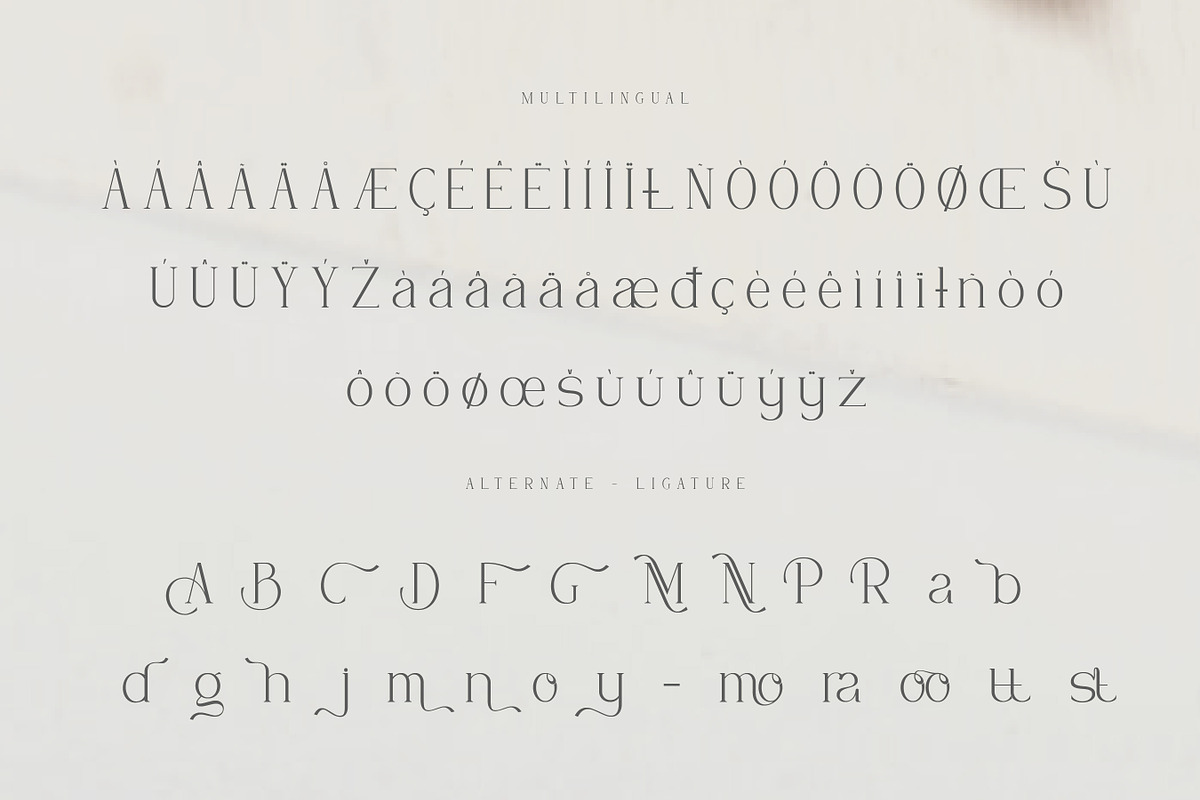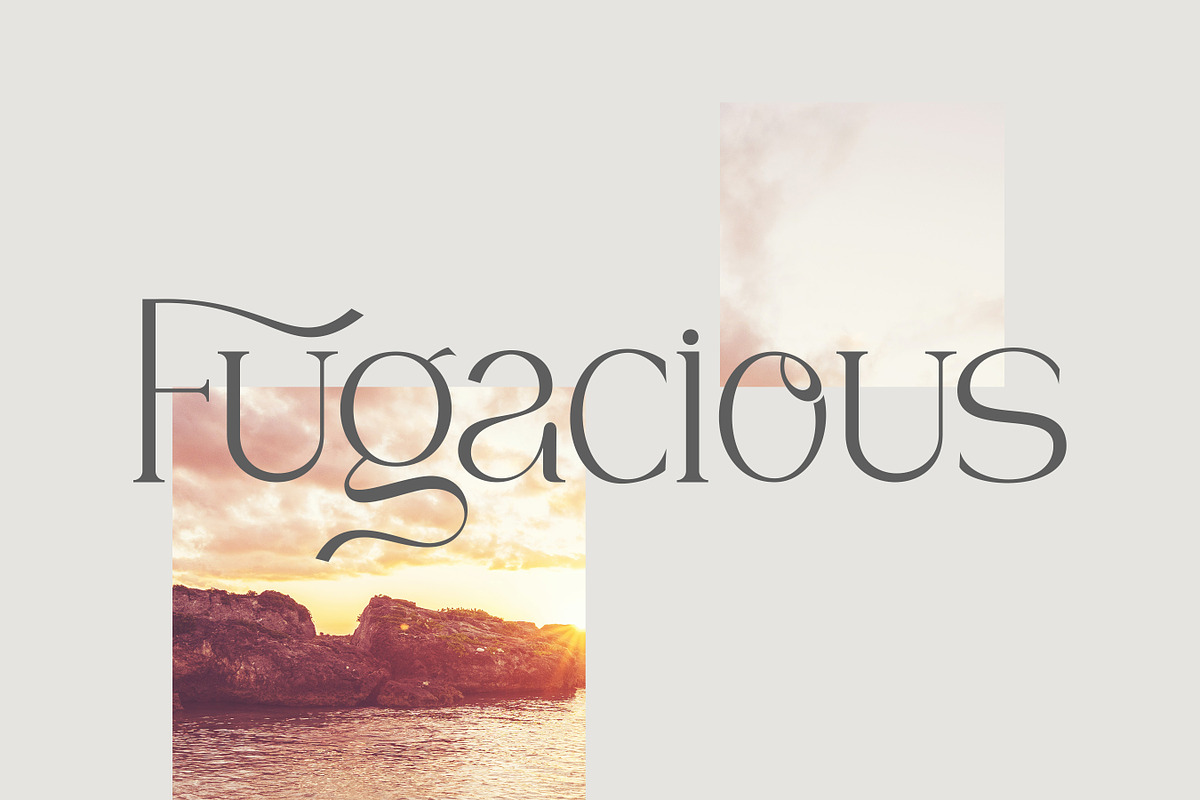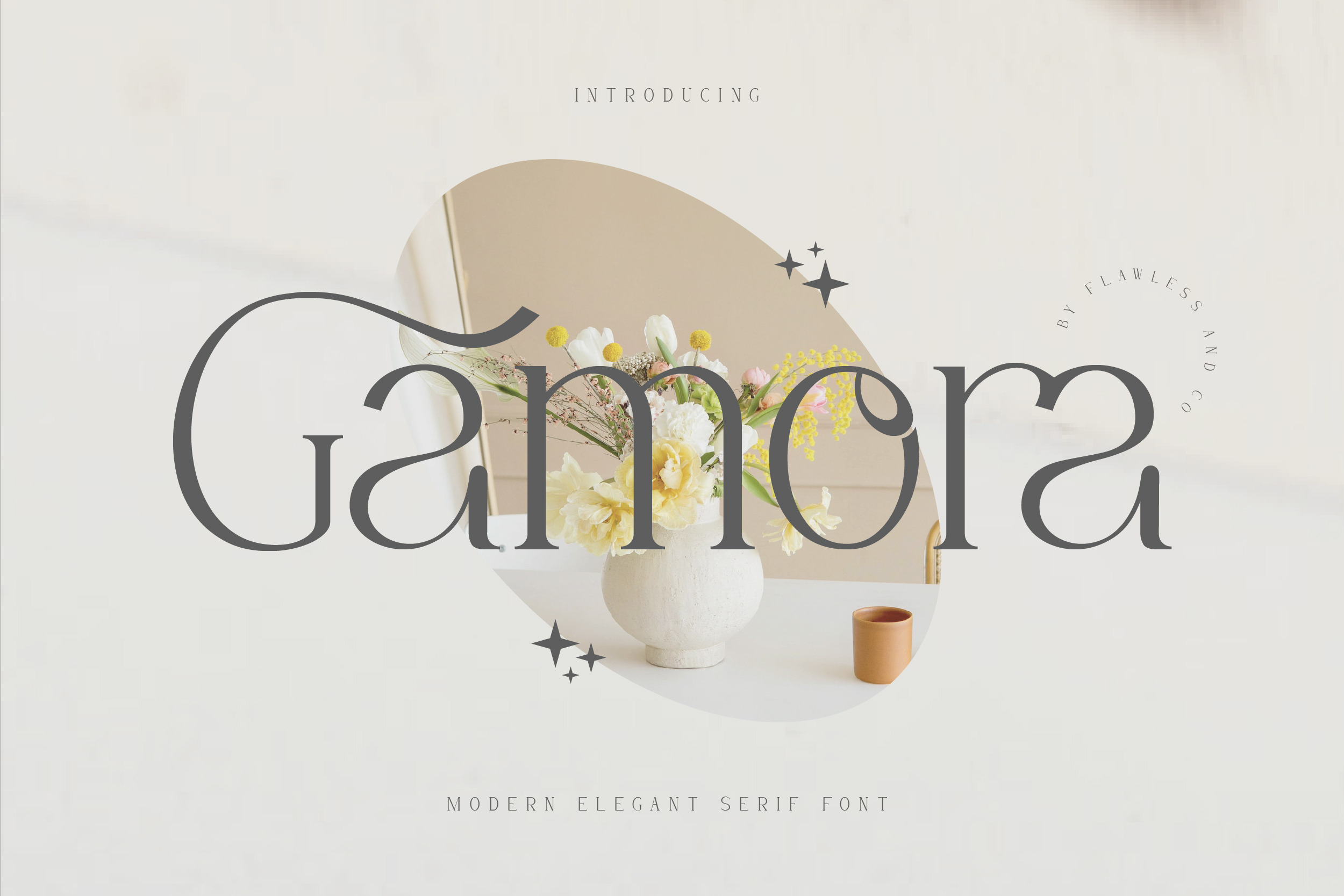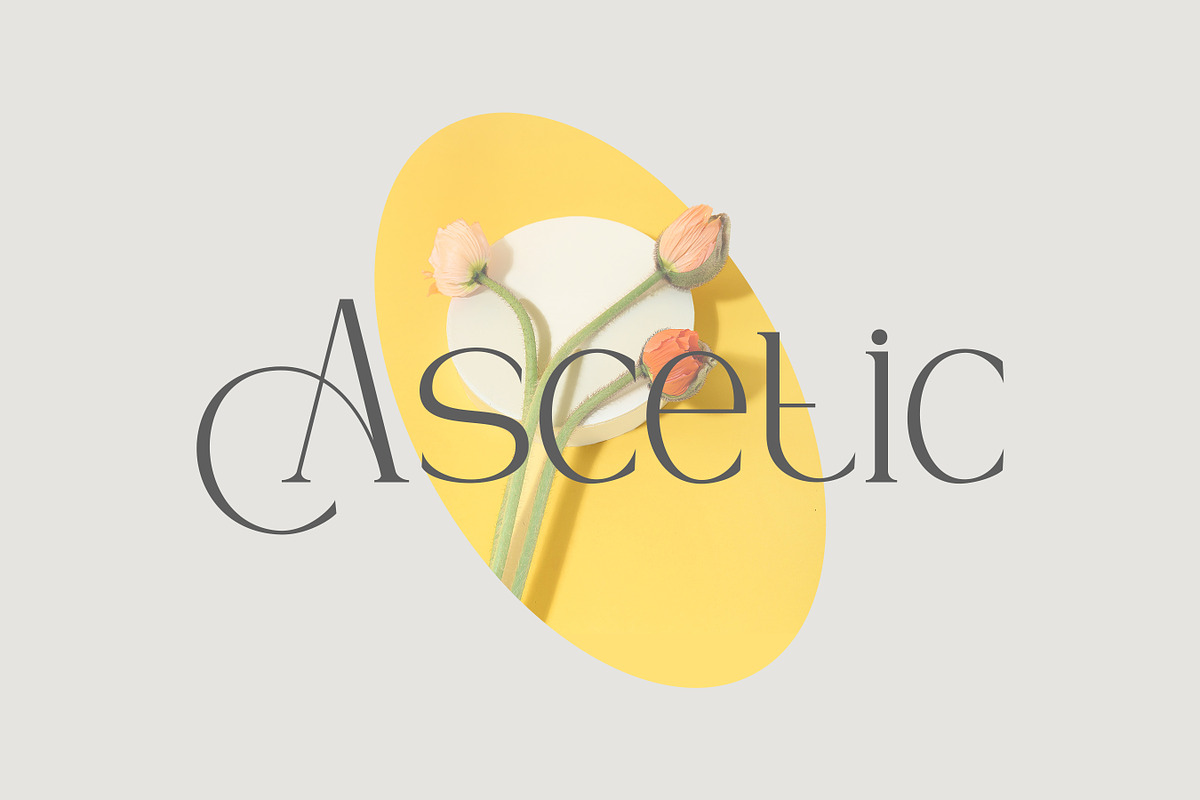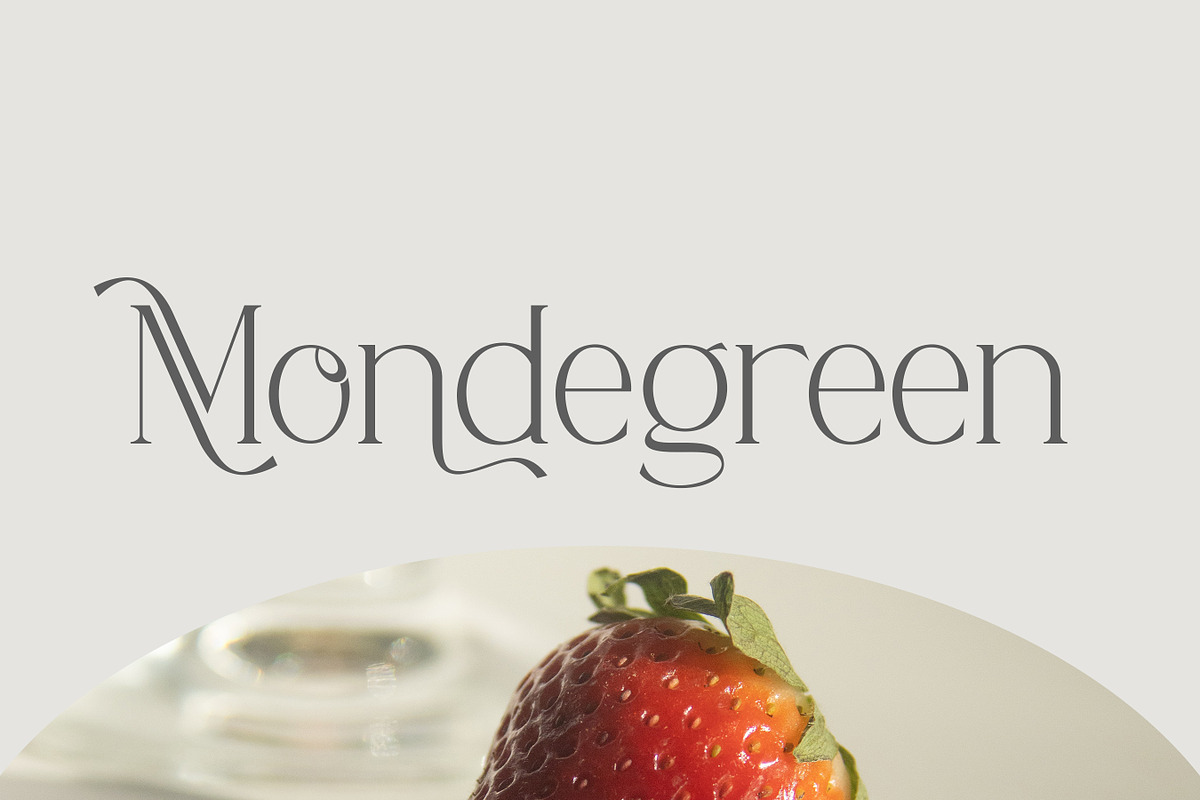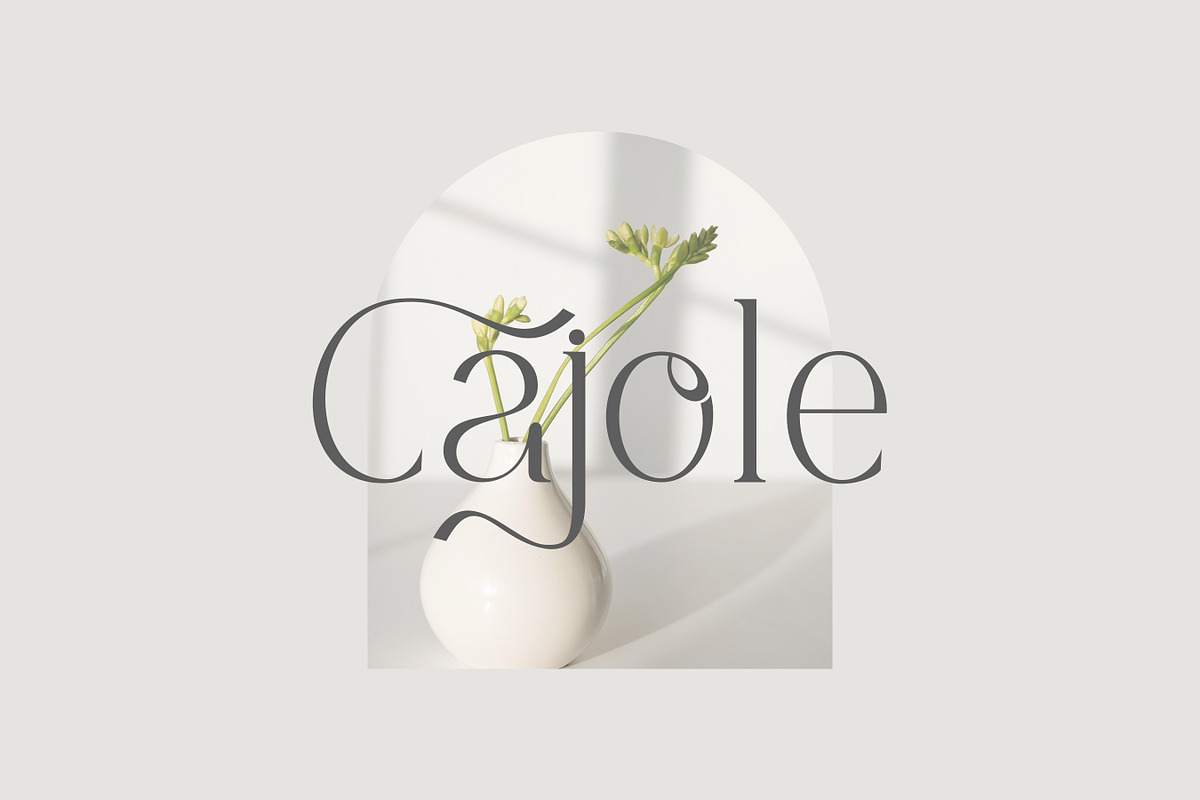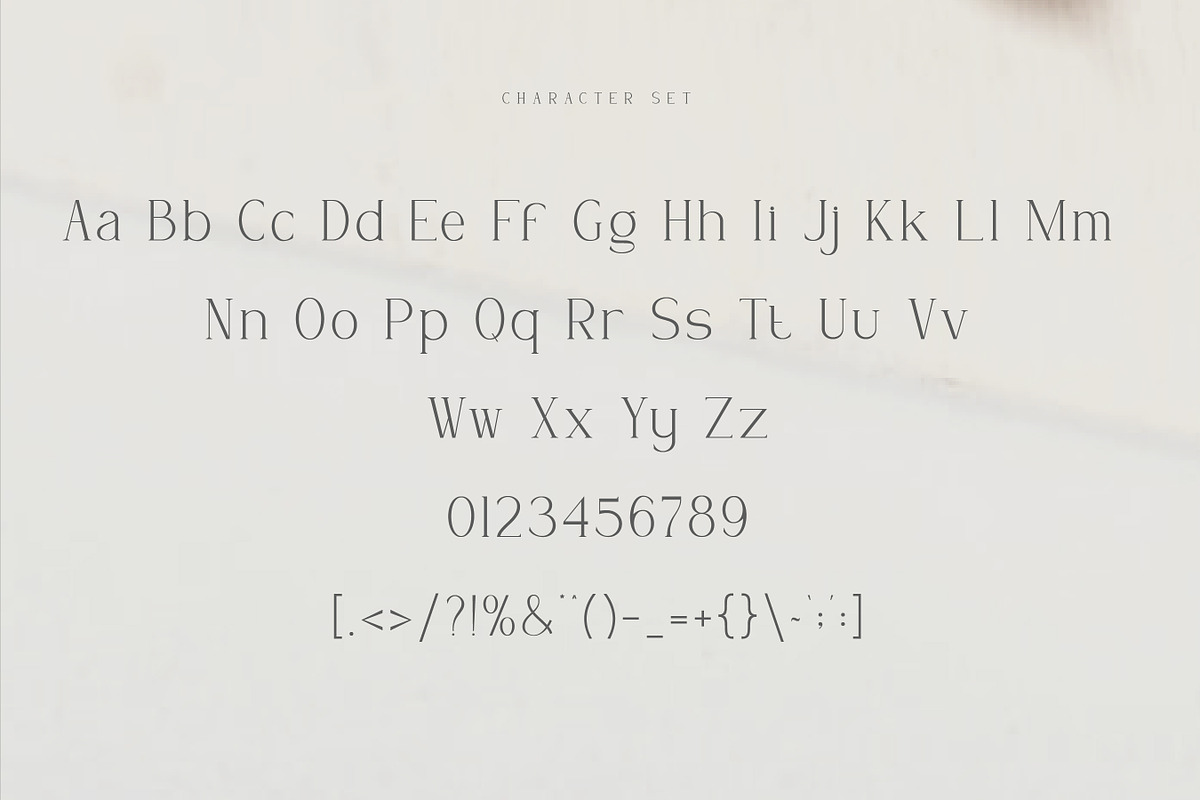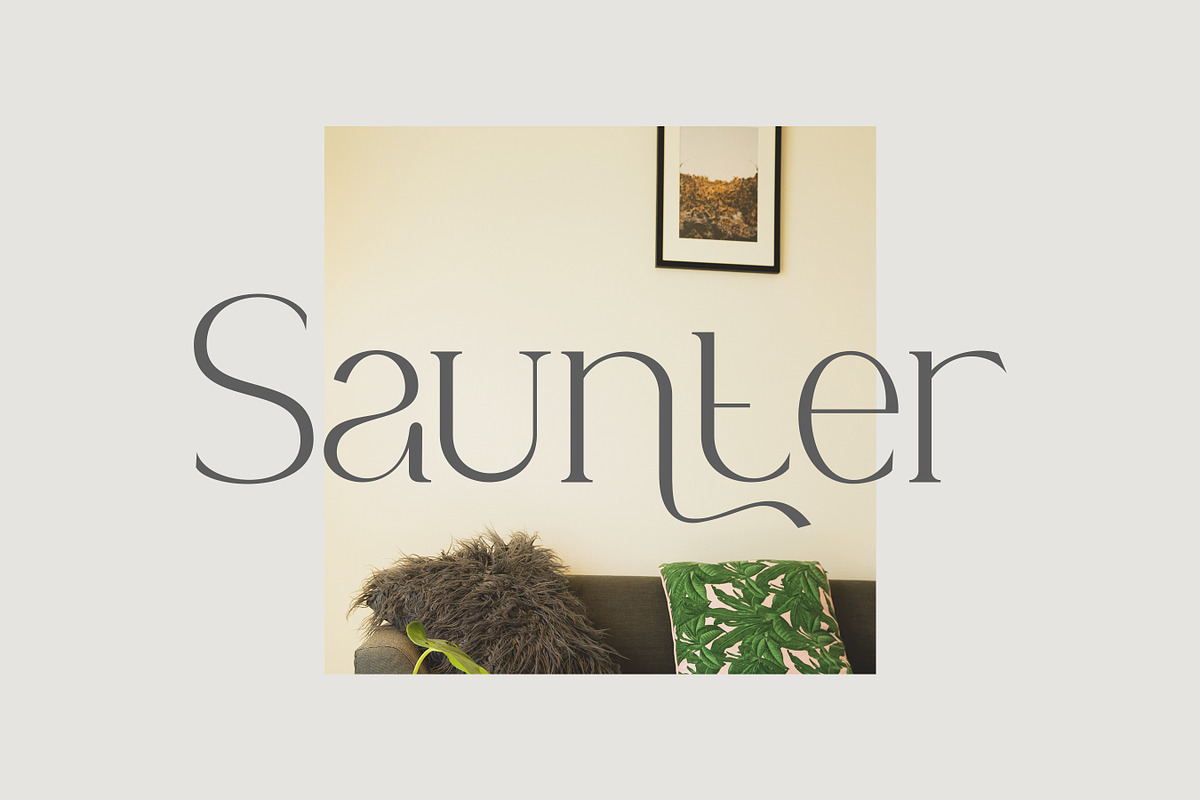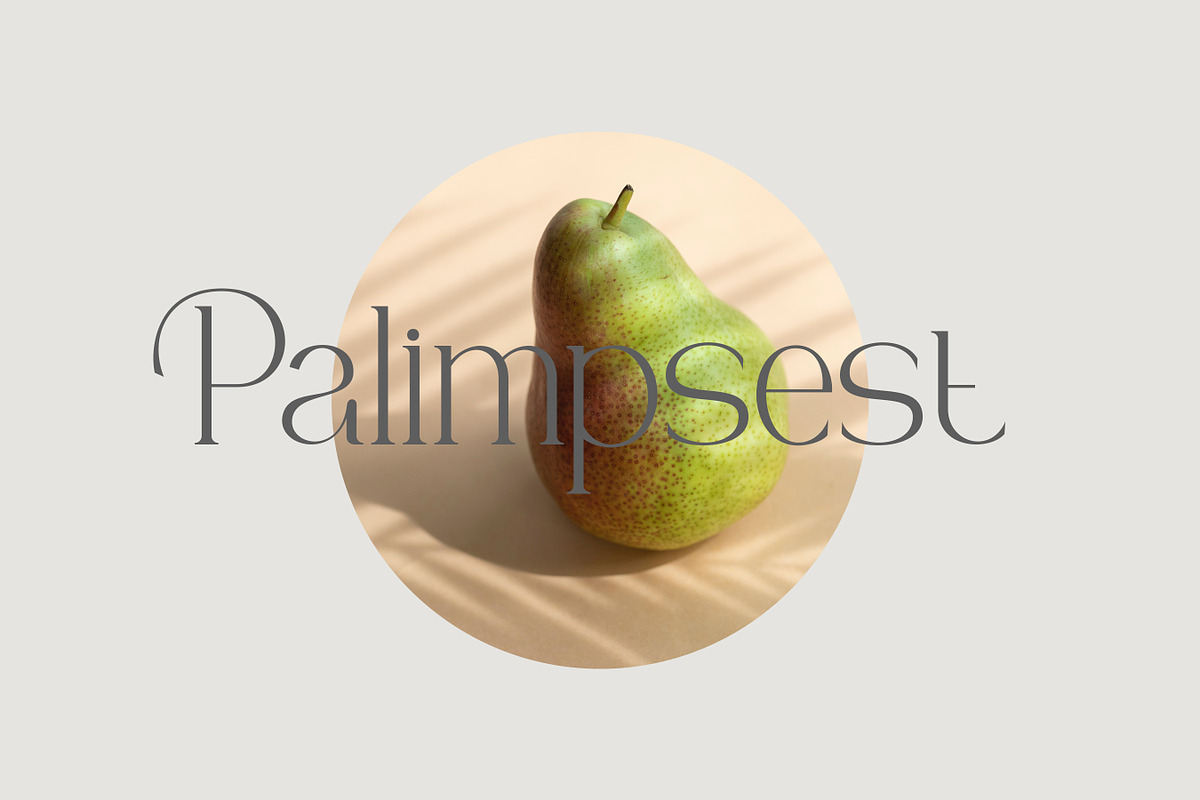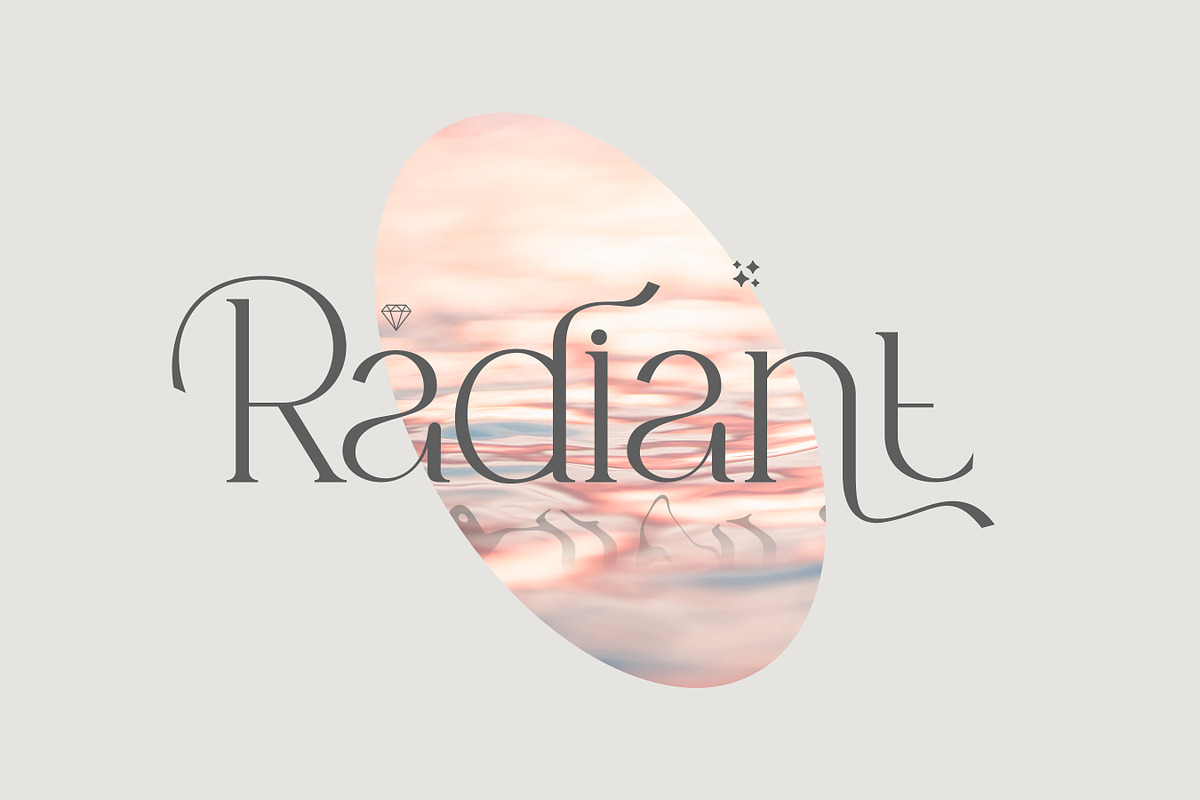
Gamora - Modern Elegant Serif Font
Introducing "Gamora" - A Modern Elegant Serif Font. Discover the perfect balance of modernity and elegance with "Gamora," a stunning serif font that offers not only refined character but also a wealth of alternatives and ligatures to enhance your design versatility. With its sleek lines, graceful serifs, and exquisite detailing, "Gamora" is designed to convey contemporary grace and style with a touch of individuality.
Multilingual Uppercase alphabet A-Z Lowercase alphabet a-z Alternate Character Numbers 0-9 Some punctuation